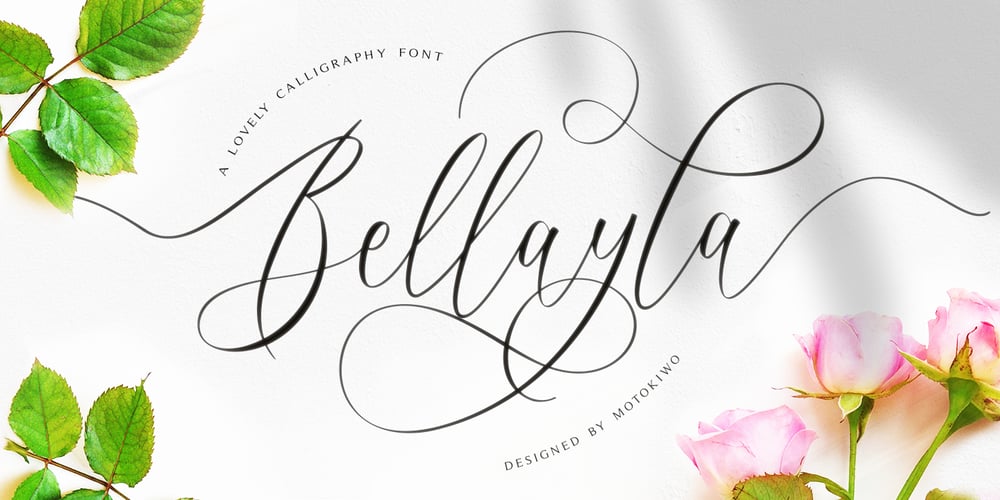
Bellayla Font Family was designed by Anton Cahyono and published by Motokiwo. Bellayla contains 1 styles and family package options. Bellayla (also known as Bridgesty), a lovely calligraphy font with romantic taste. It’s bouncy, elegant, and gorgeous script font that very recommended to be your wedding font. Bellayla comes with ligature, contextual alternates, initial & final form features, stylistic set, swash, and multilingual that already PUA encoded.